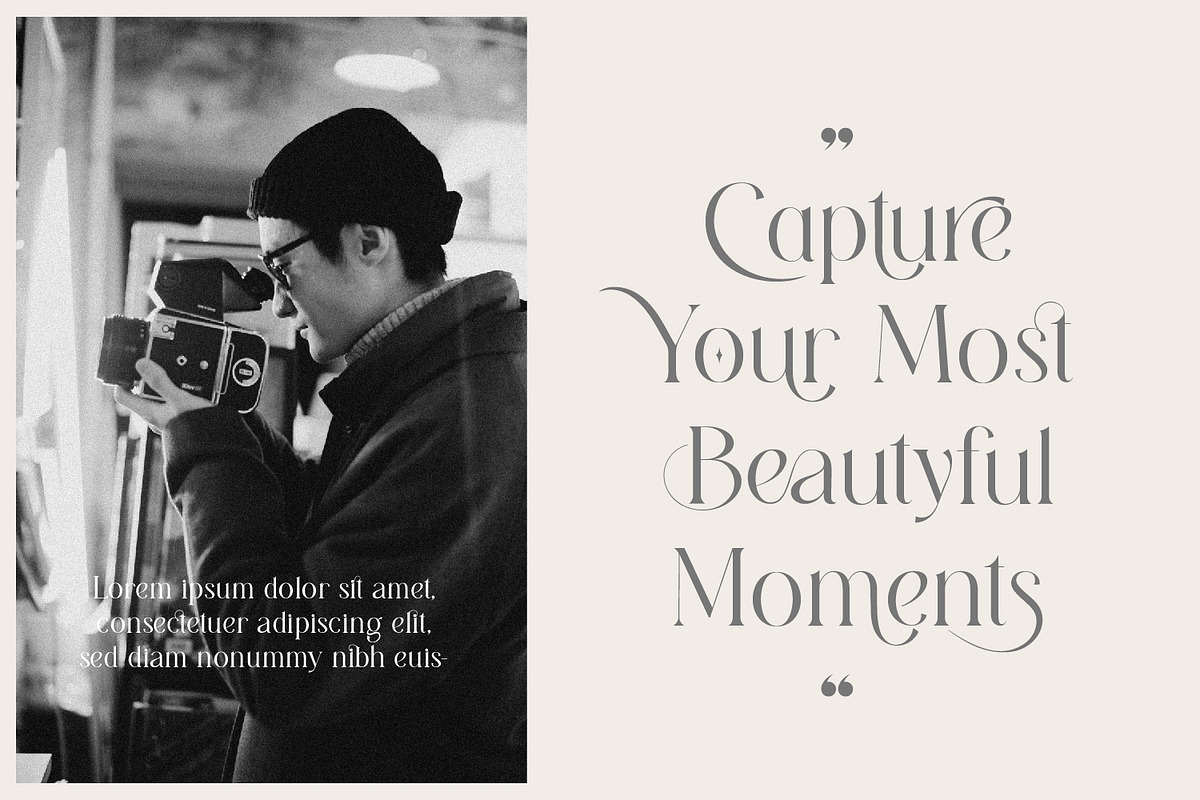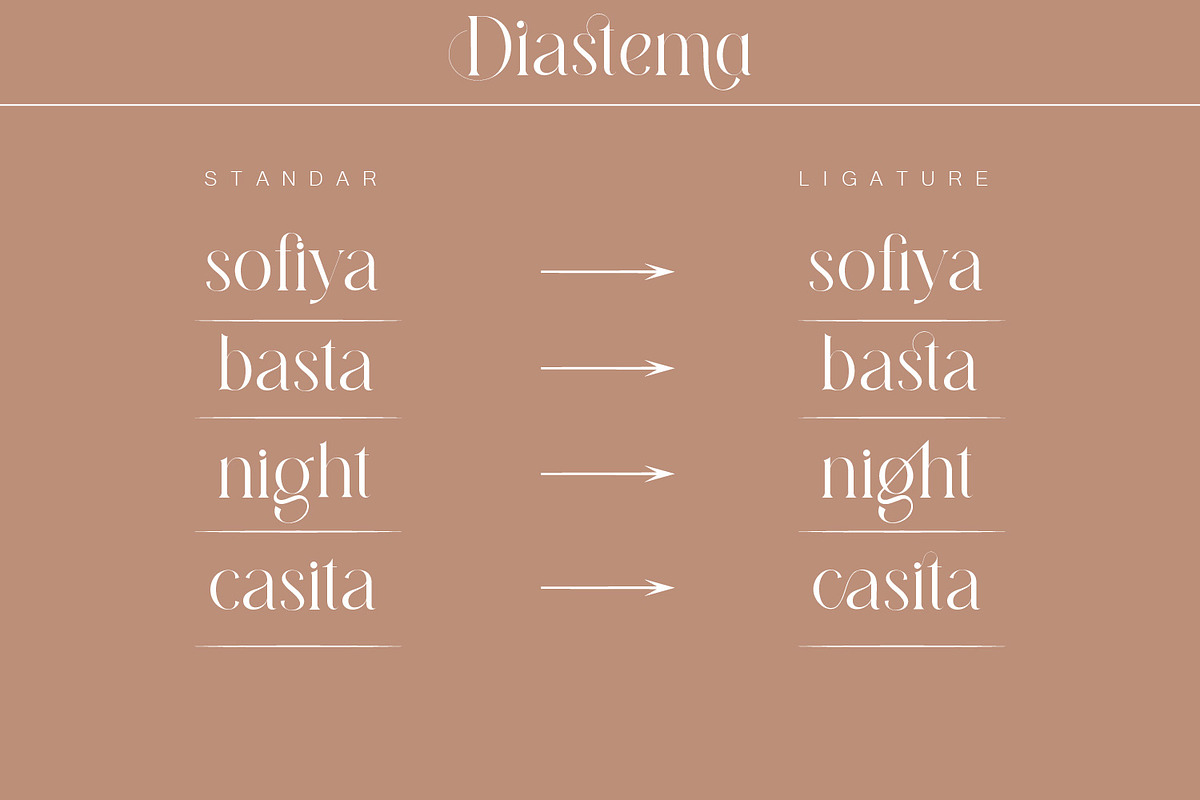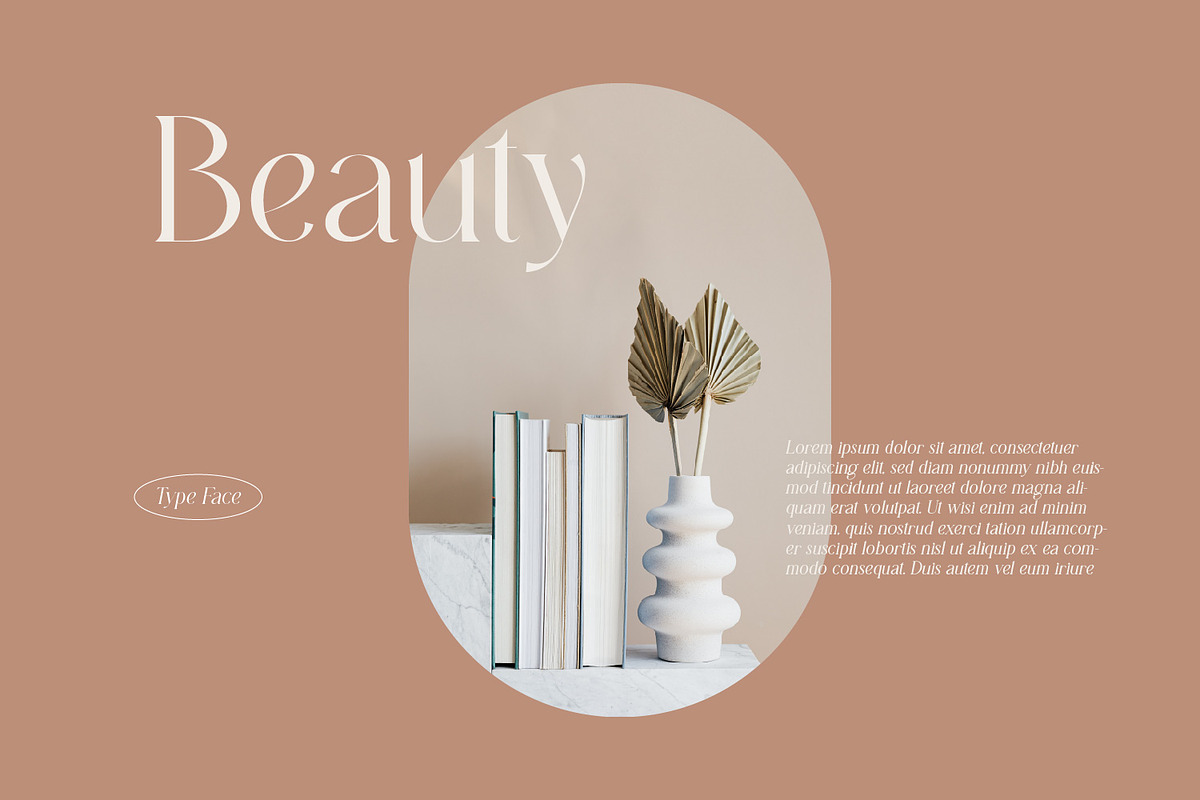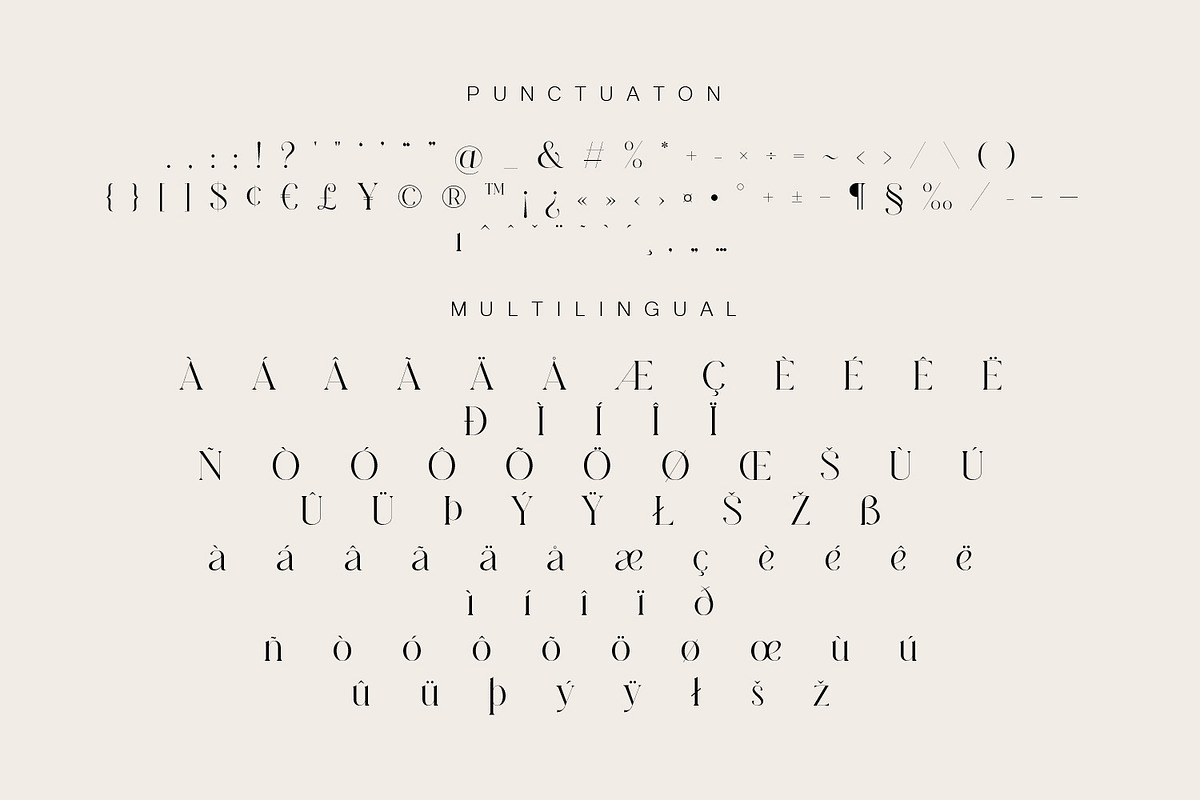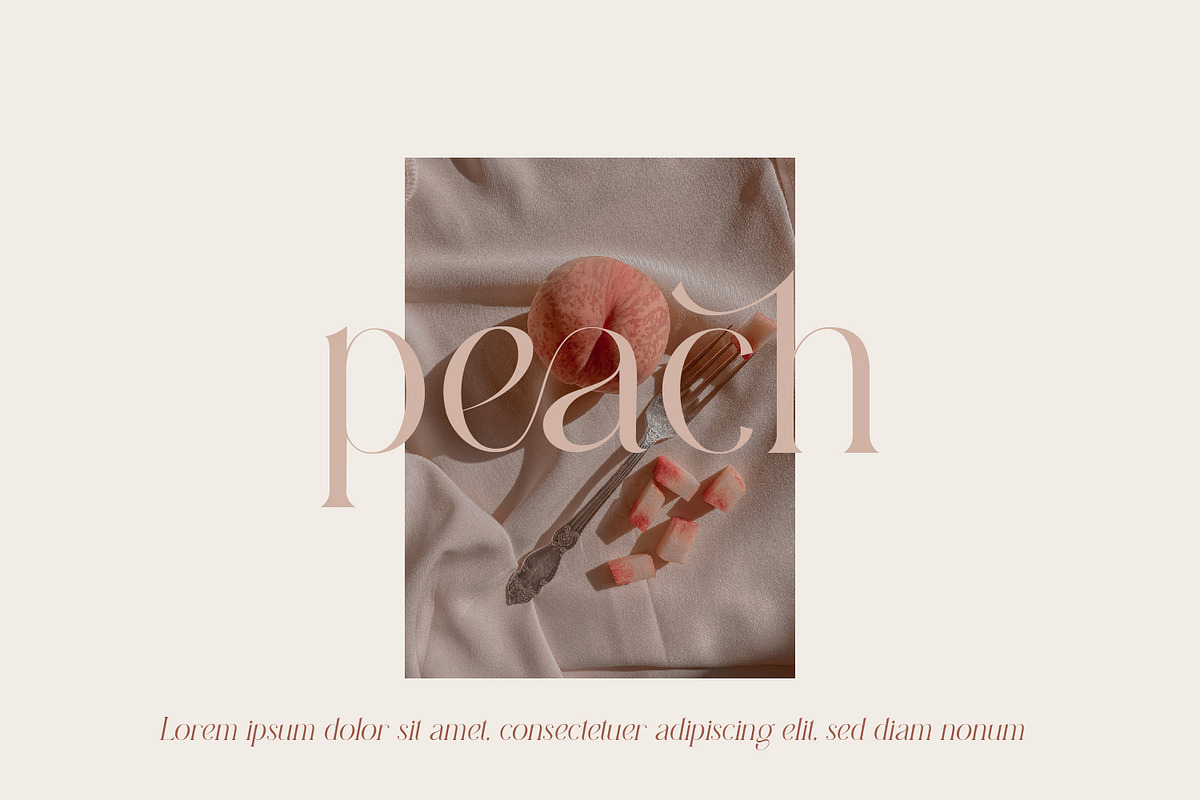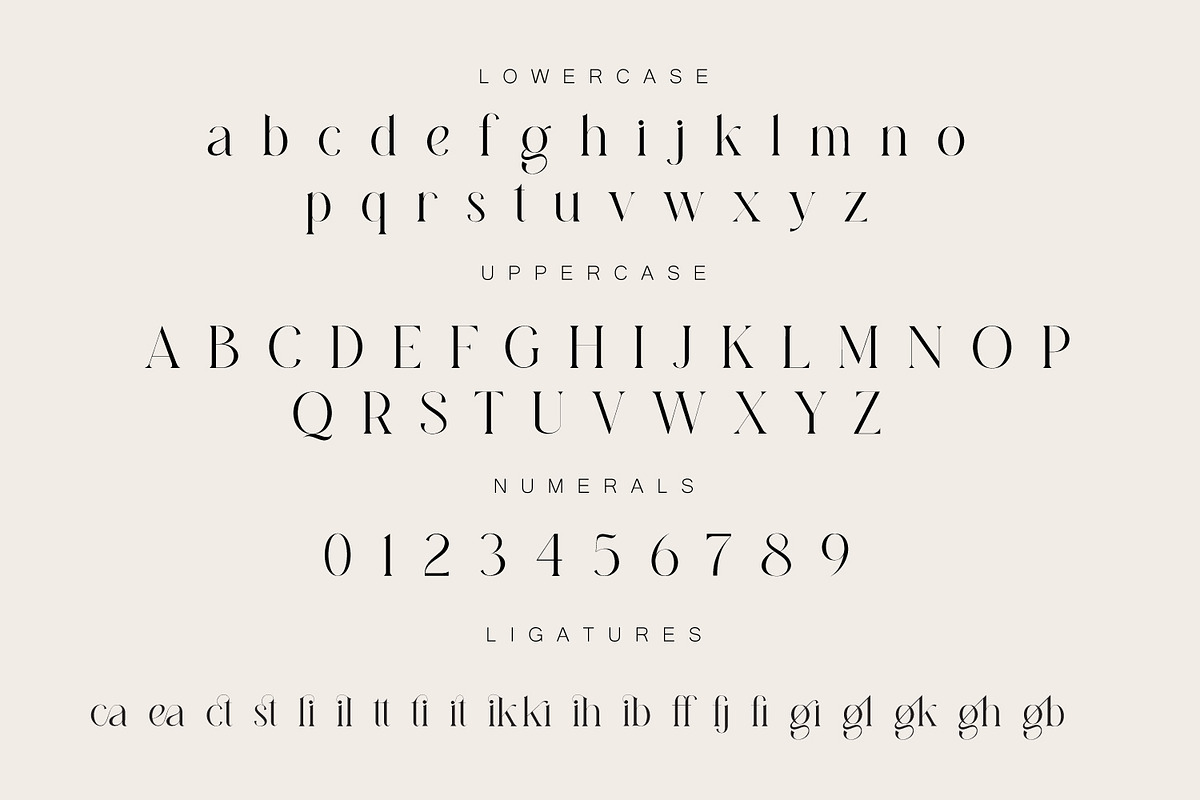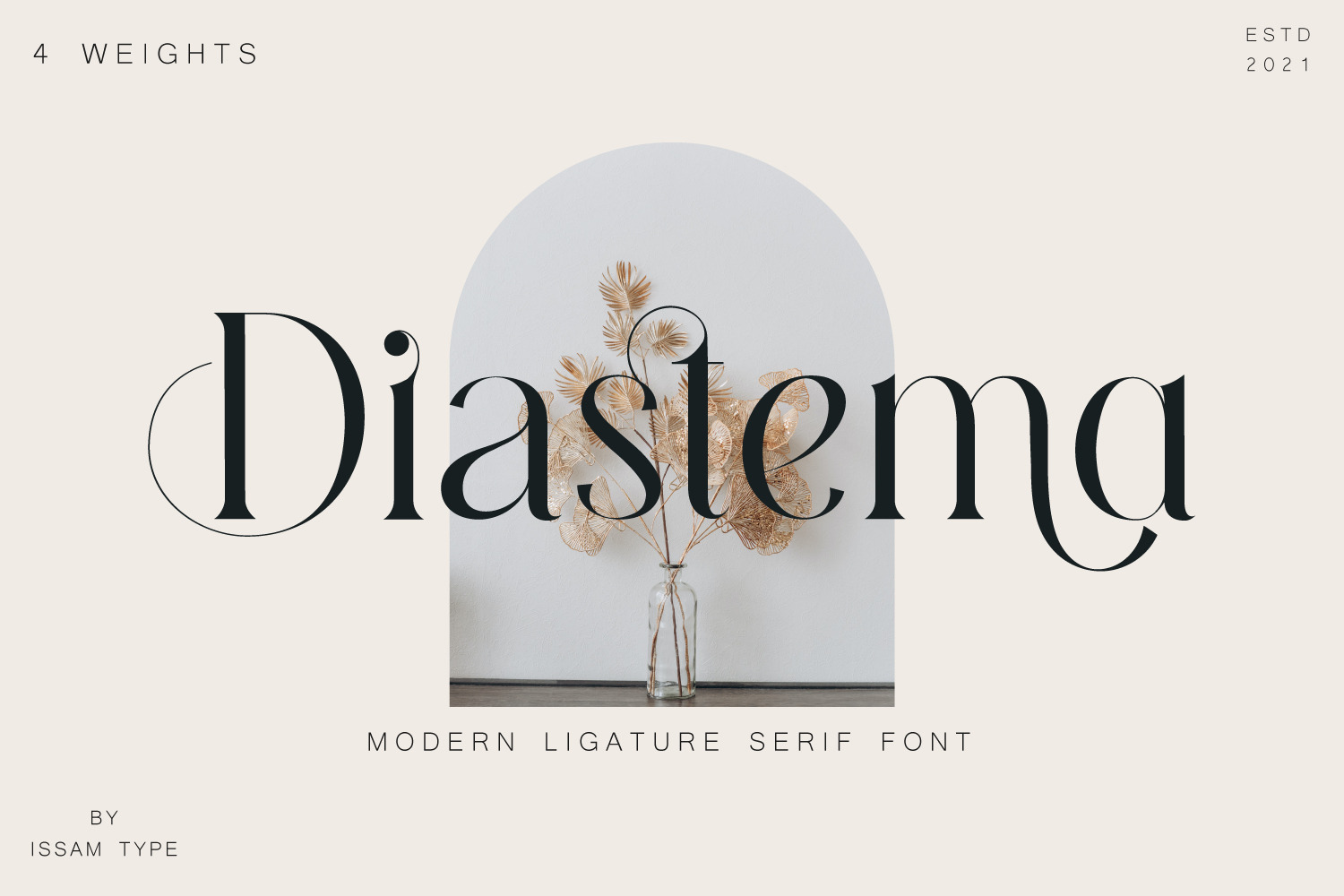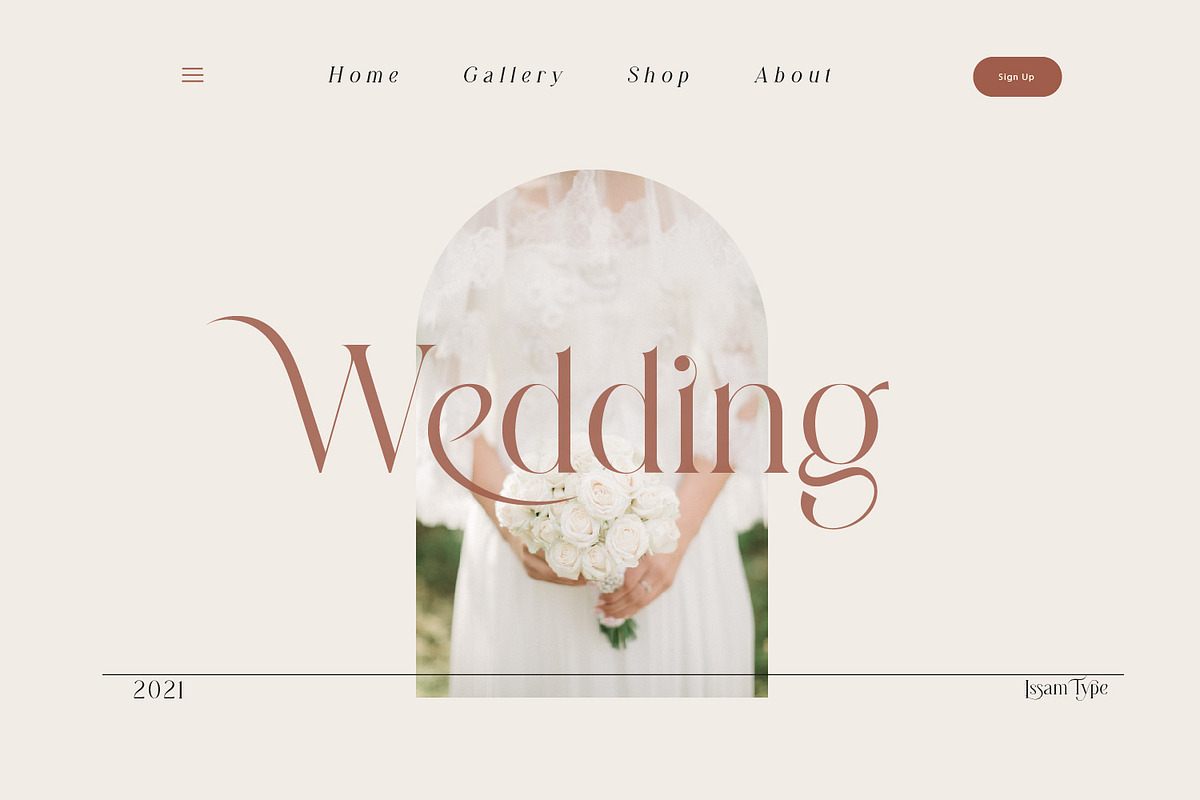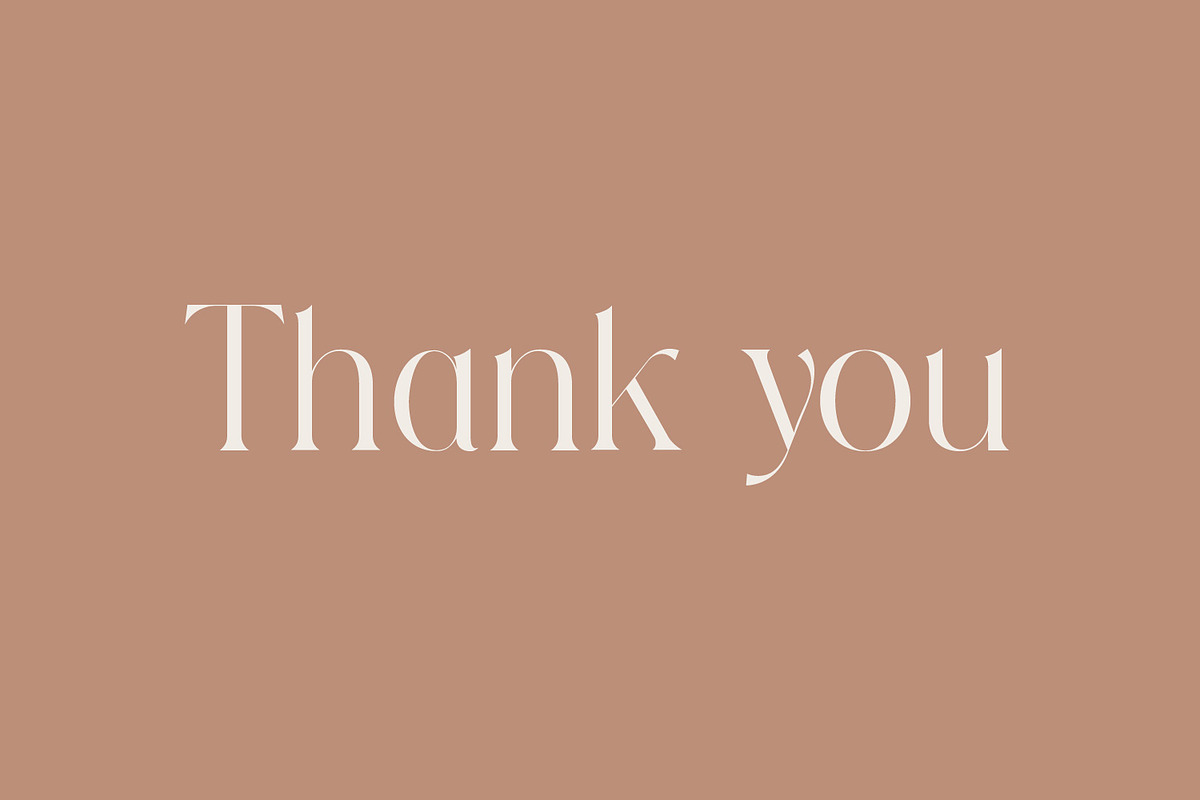
Diastema – Modern Ligature Typeface
Diastema is a modern ligature serif typeface comes with joining ligatures that give it a fancy and unique style. This font perfect for branding, logos, invitation, watermark and more.
Diastema typeface comes with regular, italic, bold and bold italic font styles. Uppercase & lowercase letters, numbers, punctuation, ligatures, alternates Multilingual support.
OpenType Features
- Kerning
- Stylistic Sets